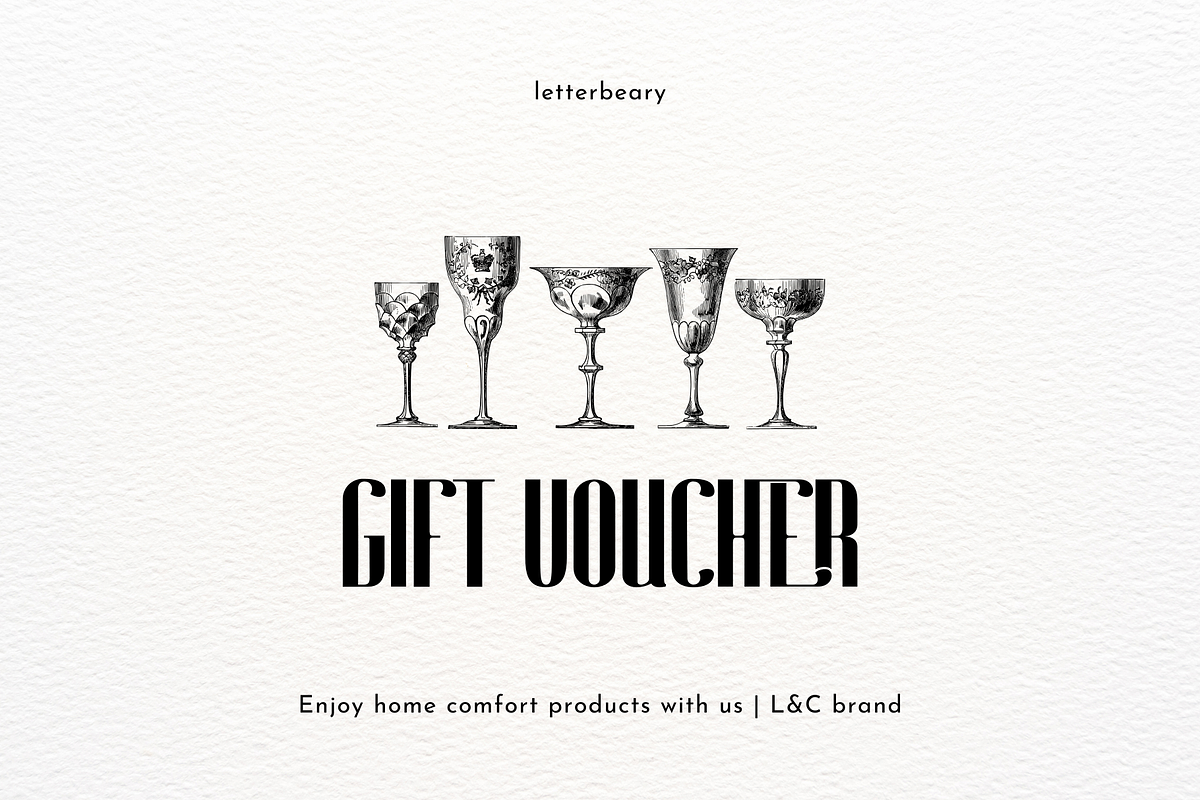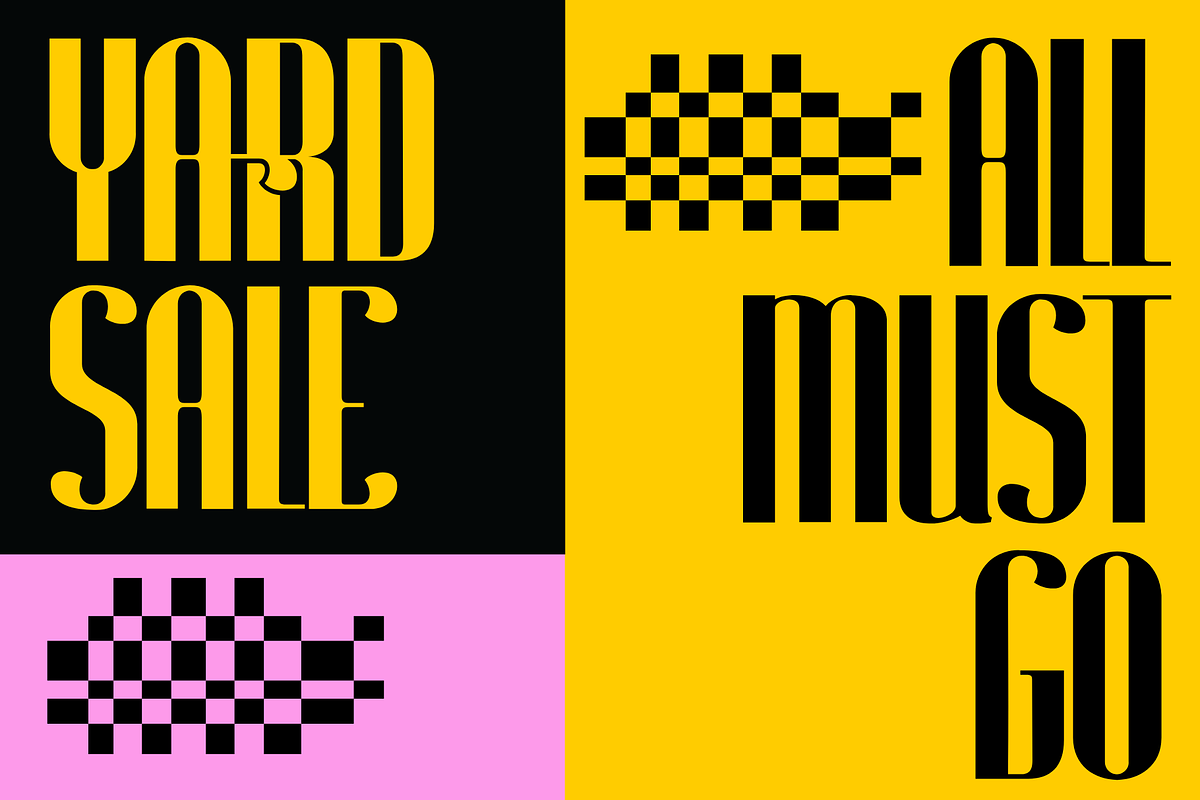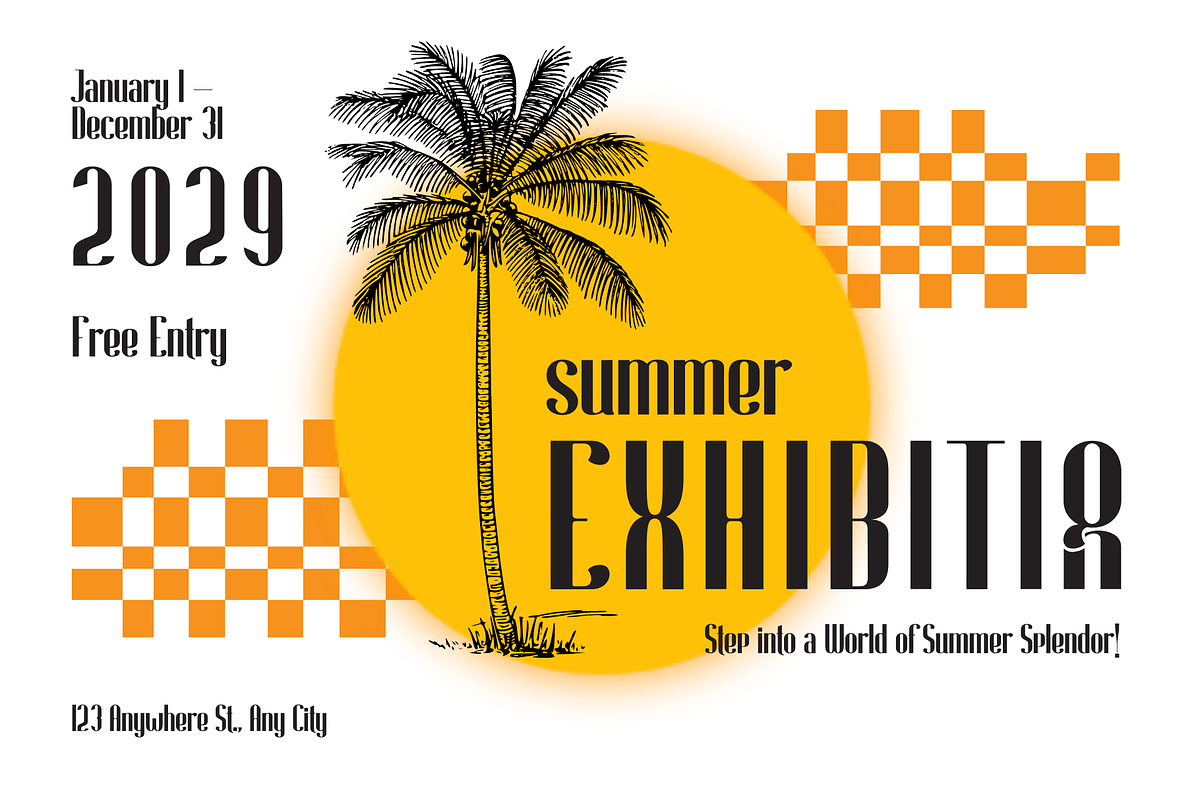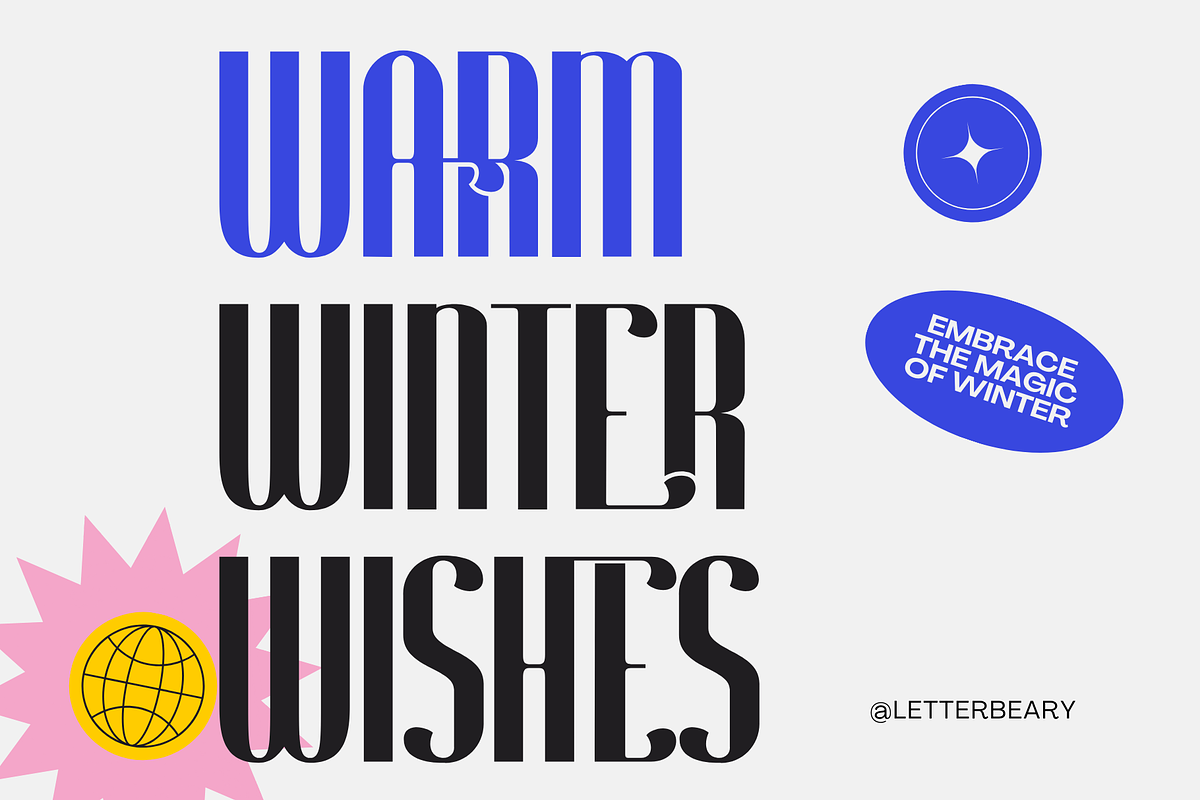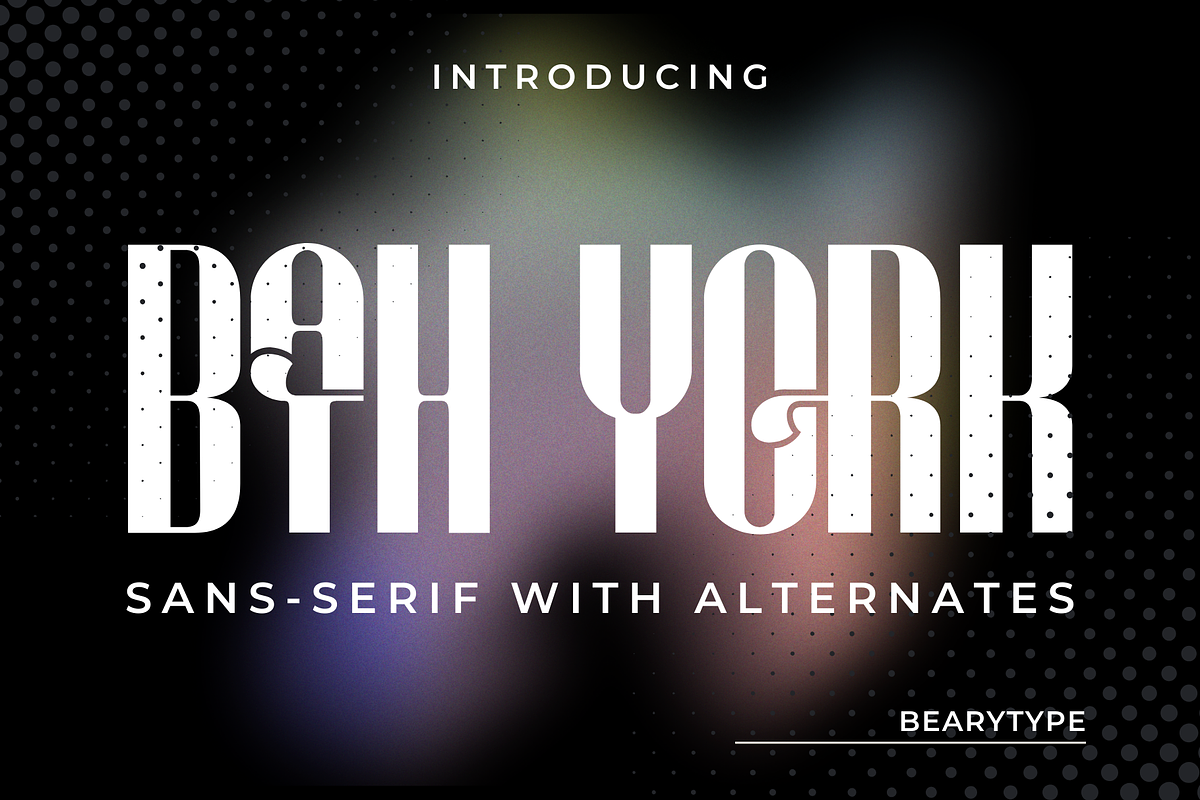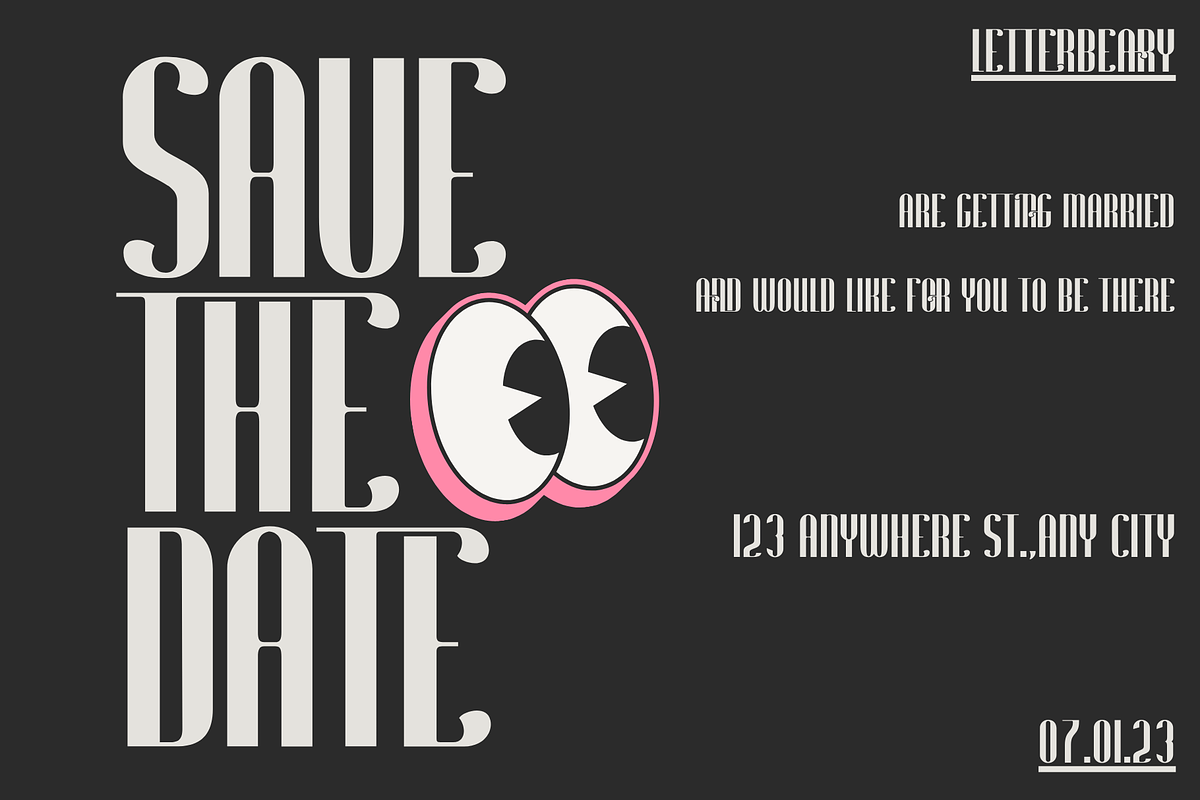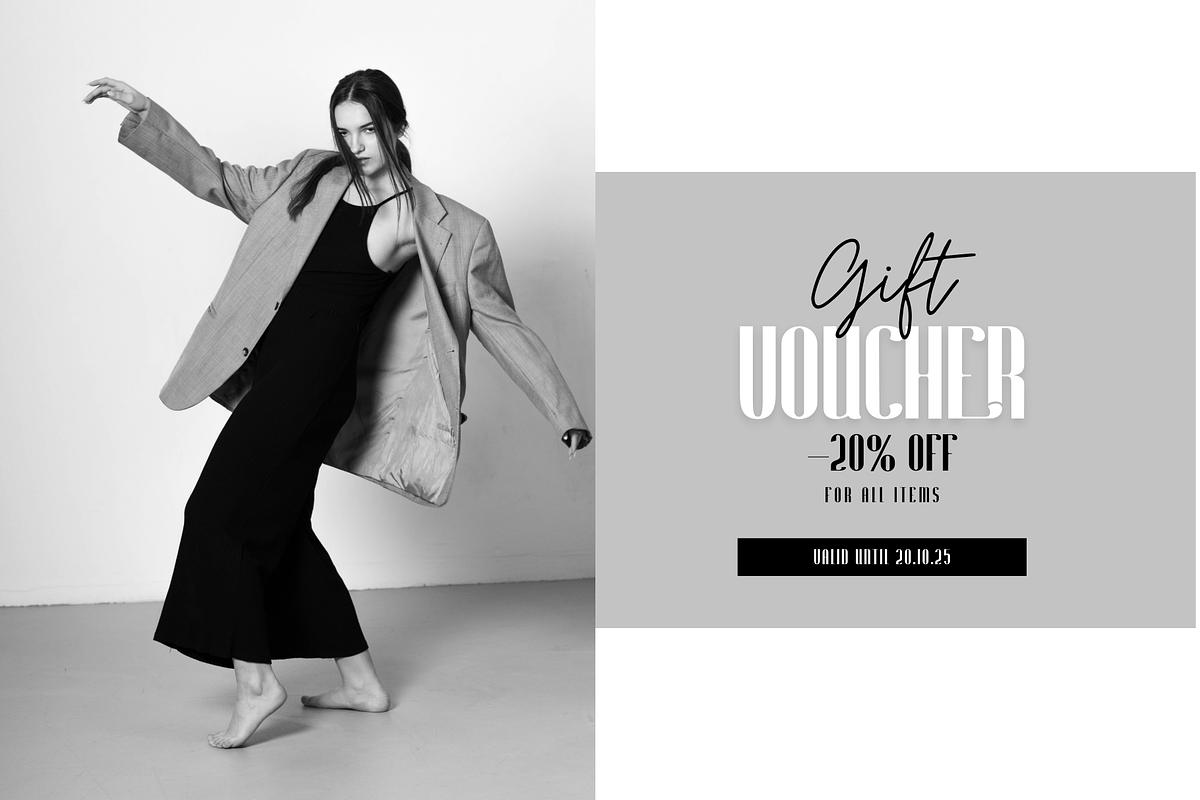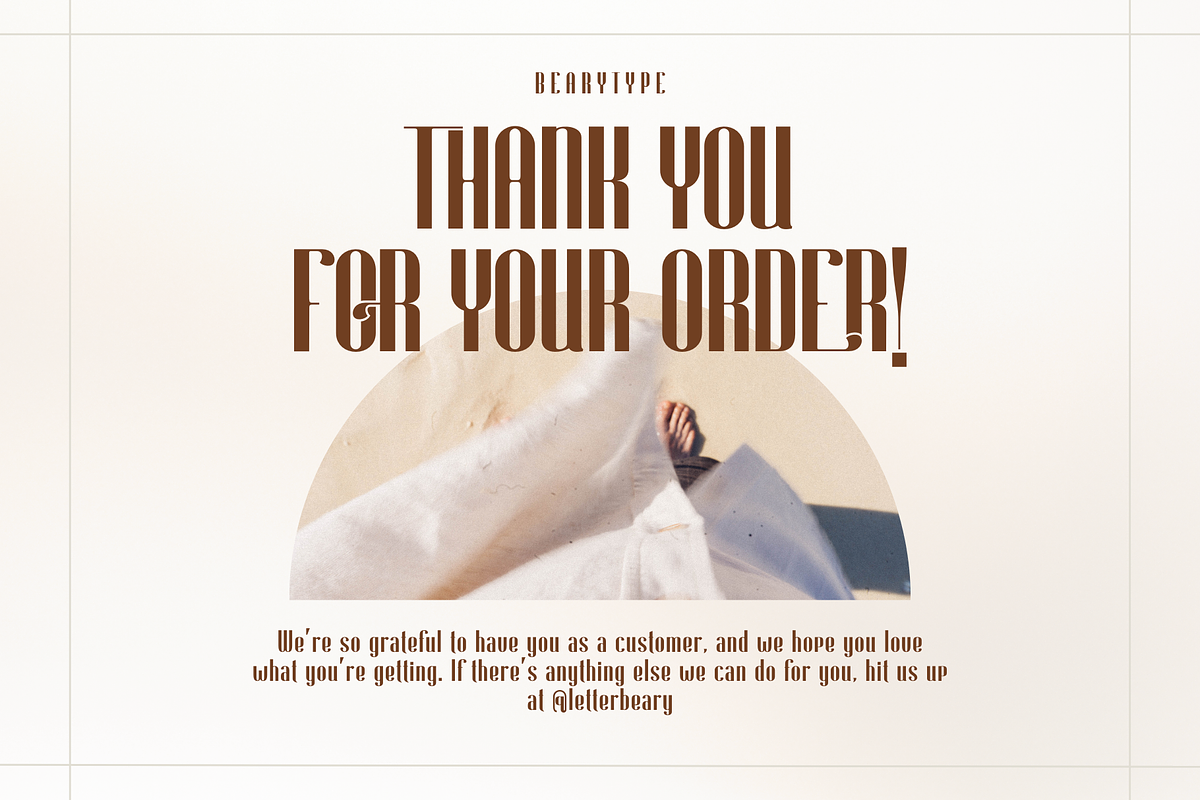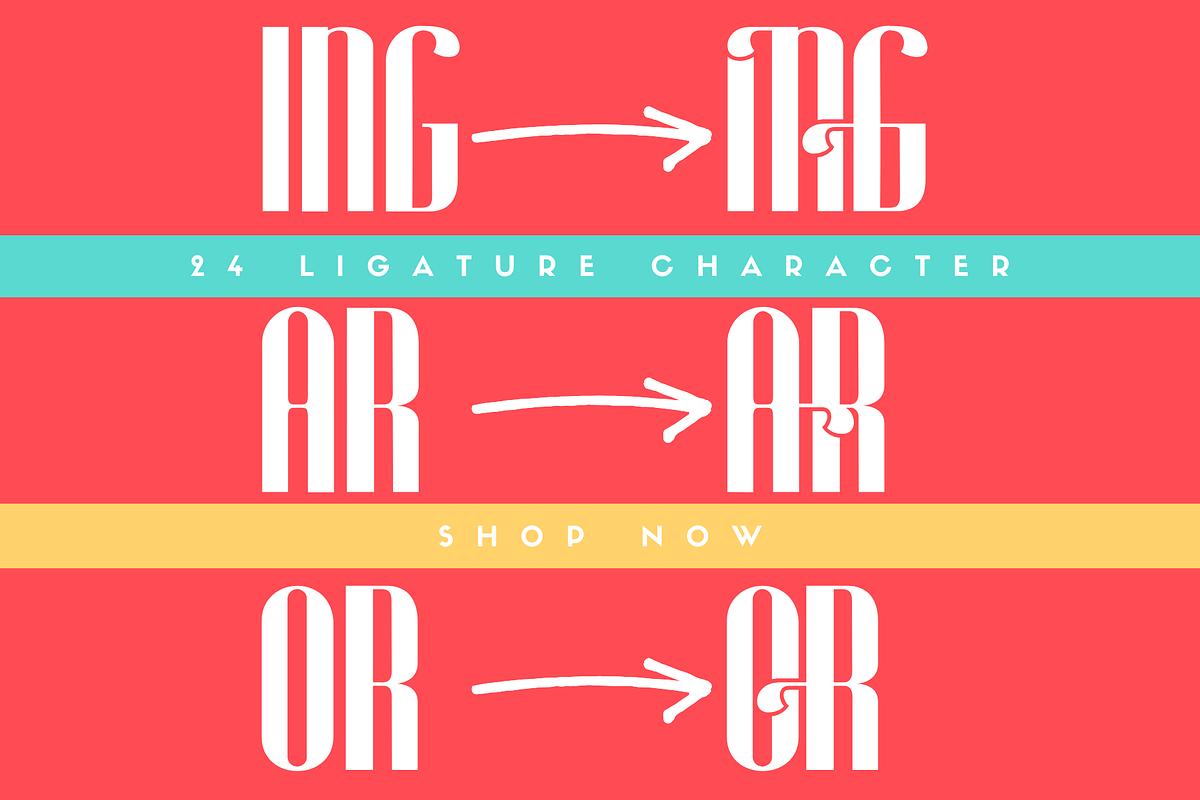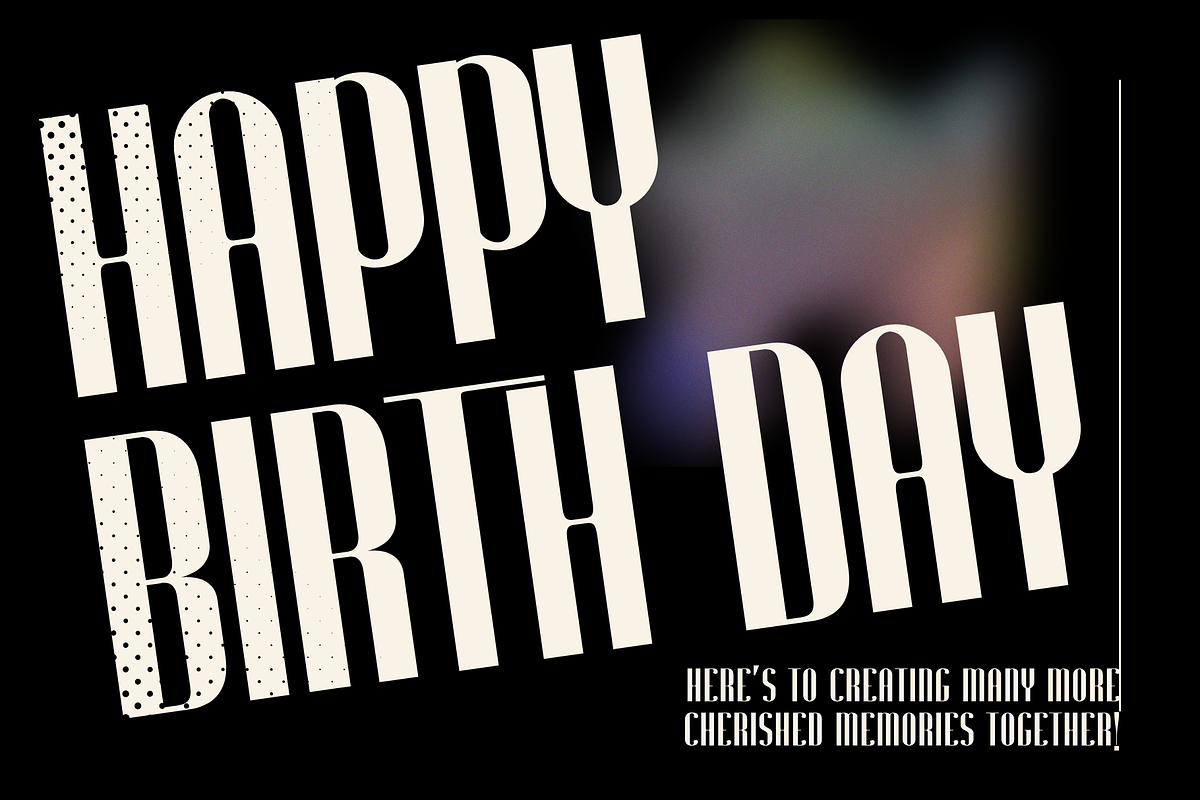
Bath York - Modern Sans
Elevate your designs with the timeless elegance of Bath York! This clean and refined sans-serif font is crafted to perfection, featuring stunning ligatures that bring sophistication and harmony to any project. With its versatile and modern appeal, Bath York is the ideal choice for a wide range of creative designs.
Why choose Bath York?
-Charming Ligatures: Beautifully crafted ligatures enhance your typography with a touch of elegance.
-Clean and Refined Style: A modern sans-serif font that exudes simplicity and professionalism.
Versatile Usage: Perfect for logos, branding, editorials, websites, and contemporary visual projects.
Let Bath York add a touch of class and style to your designs! This font is designed to make every detail stand out with grace and clarity.